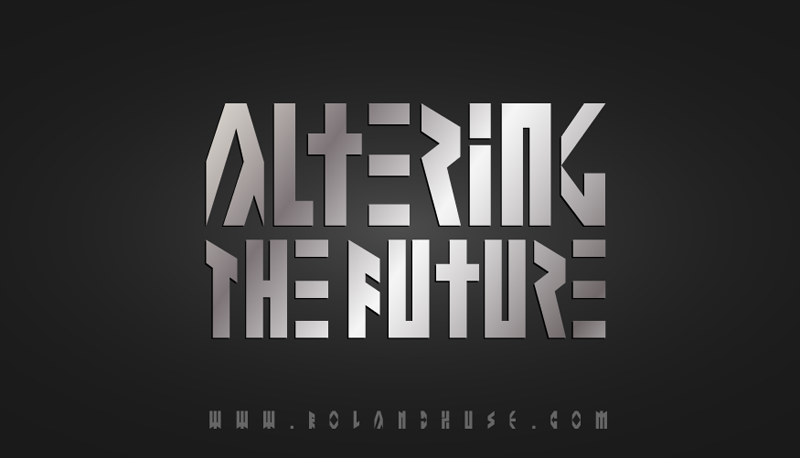
Preview and download Altering The Future Font. Created by Runes & Fonts in Techno Sci-fi styles with Free for personal use license.
Font name: | Altering The Future |
ALTERING THE FUTURE is an abstract font inspired by runes. This font is free for PERSONAL use only. For any commercial use (anything you make money from), you must send a paypal donation to myhandwritings@gmail.com. The height of the letters is fixed but Lowercase and uppercase has different versions of the characters what you can play with. The name came from a title of a song from one of my favorite album : Death - Spiritual Healing You MAY NOT sell my fonts or claim them as your own. You MAY NOT edit or rename my fonts. You MAY redistribute my fonts if: 1. You credit me (Roland Huse). 2. Keep the READ ME file intact within the zip folder. 3. Provide a link back to my website (www.rolandhuse.com). Thank you & I hope you like this font, Roland http://www.rolandhuse.com https://www.facebook.com/pages/Runes-And-Fonts/123221817784772 |